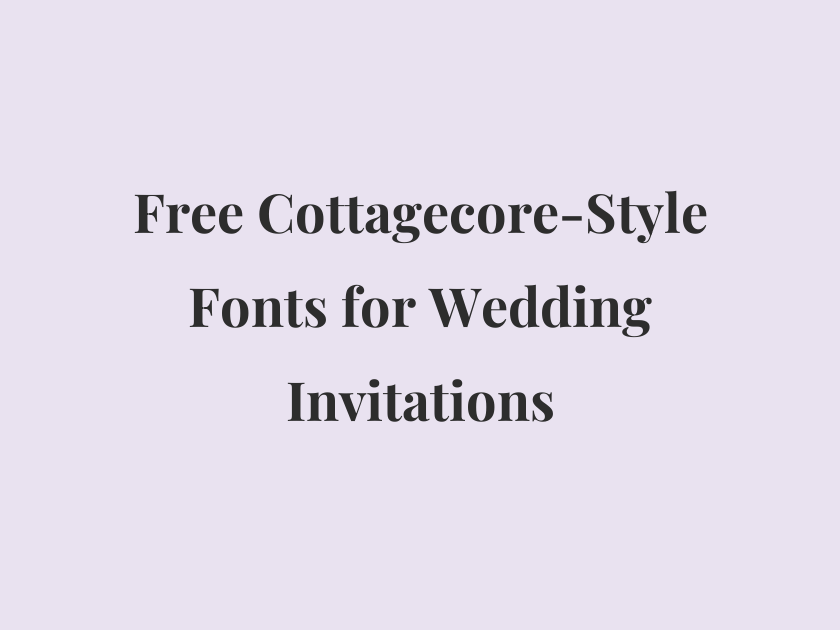
65 Best Free Cottagecore-Style Fonts for Wedding Invitations
The soft, sun-faded romance of cottagecore has become one of the most requested looks for wedding stationery: think pressed wildflowers, linen ribbon, garden ceremonies, and invitations that feel handwritten by a beloved aunt at a farmhouse table. Finding free fonts for wedding invitations that capture that mood means looking past generic script fonts toward letterforms with real warmth, whether that’s an antique serif, a fluid calligraphy script, or a loose, diary-like hand. Every font here is free on Google Fonts, so you can pair a romantic display face with a legible body serif without spending a cent on licensing.
1. Playfair Display
Two hearts, one wildflower meadow wedding
Playfair Display has become something of a wedding-stationery workhorse, and for good reason. Its high contrast between thick and thin strokes gives headlines an editorial elegance that still reads as romantic rather than corporate, and it holds up beautifully at large invitation-title sizes.
Pair it with a lighter serif body text like Lora or EB Garamond for a classic, layered invitation suite.
2. Cormorant Garamond
Joyfully gathering under the orchard blossoms
Cormorant Garamond is the font to reach for when you want a garden-party invitation to whisper rather than announce itself. Modeled on old-style Garamond faces, its delicate, elongated letterforms feel like they belong on a hand-pressed card tucked among dried lavender.
It gets thin and a little fragile at small sizes, so save it for titles, names, and short verses rather than dense paragraphs of ceremony details.
3. Cormorant
Please join us in the meadow
Cormorant is the sturdier, slightly more versatile sibling of Cormorant Garamond, offering a fuller weight range that still keeps that airy, antique charm. It’s a dependable choice for RSVP cards and detail inserts where you need a touch more legibility than the Garamond cut allows.
4. EB Garamond
Together forever, wrapped in linen and lace
EB Garamond carries the quiet authority of a 16th-century printing tradition, and that history shows in every curve. It reads as timeless and understated rather than trendy, which makes it a favorite for couples who want their invitation to feel like a treasured heirloom rather than a design statement.
Because it’s genuinely comfortable to read in long passages, it’s an excellent choice for wedding programs, vow booklets, and ceremony readings.
5. Libre Baskerville
Save the date for our garden vows
Libre Baskerville was optimized for on-screen reading, which makes it a smart pick for wedding websites and digital save-the-dates that need to look as good on a phone as they do printed on cotton stock.
6. Crimson Text
A rustic celebration among the wildflowers
Modeled loosely on old-style book typefaces, Crimson Text has a slightly bookish, literary warmth that suits couples leaning into a “storybook cottage” theme. It’s understated enough to sit quietly behind a bolder script headline.
7. Crimson Pro
Gathering loved ones beneath the willow tree
Crimson Pro takes the same literary bones as Crimson Text but adds a variable weight range, giving you finer control over emphasis in longer invitation copy, poems, or ceremony orders without switching families.
8. Lora
With love, in the orchard at dusk
Lora’s gently curved serifs give it a handwritten undertone even though it’s fully a text face, which is exactly the balance a cottagecore invite needs between formality and warmth. It’s a reliable body-copy companion to almost any script headline on this list.
9. Spectral
Vows exchanged among trailing ivy and roses
Spectral was designed for long-form reading, and its restrained, slightly rustic serifs make it feel less like a screen font and more like something set on an old letterpress. Consider it for wedding invitation wording that runs a little longer than usual, such as a heartfelt welcome paragraph.
10. Bodoni Moda
An elegant evening beneath string lights
Bodoni Moda brings a sharper, more dramatic contrast into the mix. It suits the dressier end of cottagecore, the kind of wedding with fairy lights strung through an orchard and a slightly more formal dinner to follow.
11. Marcellus
Forever begins in the wildflower field
Marcellus has the cool, engraved look of an old botanical illustration caption. It’s a lovely choice for monogram lockups or short vow excerpts where you want elegance without any decorative flourish.
12. Cardo
Bound together like ribbon and lace
Built for classical and academic texts, Cardo carries an understated scholarly charm that translates surprisingly well to rustic wedding stationery, especially for couples who met in a library or love a well-worn book.
13. Vollkorn
A countryside gathering of family and friends
Vollkorn means “wholegrain” in German, and it looks the part: sturdy, warm, and a little rounded at the edges, like a font baked rather than drawn. It’s an easy, legible choice for detail cards and maps.
Cottagecore wedding stationery lives or dies on restraint as much as charm: a single well-chosen script paired with a calm, readable serif will always look more considered than a page crowded with flourishes. With this many free options available on Google Fonts, there’s plenty of room to test a few combinations, print a sample, and see which pairing actually feels like your wedding before committing to the full suite.